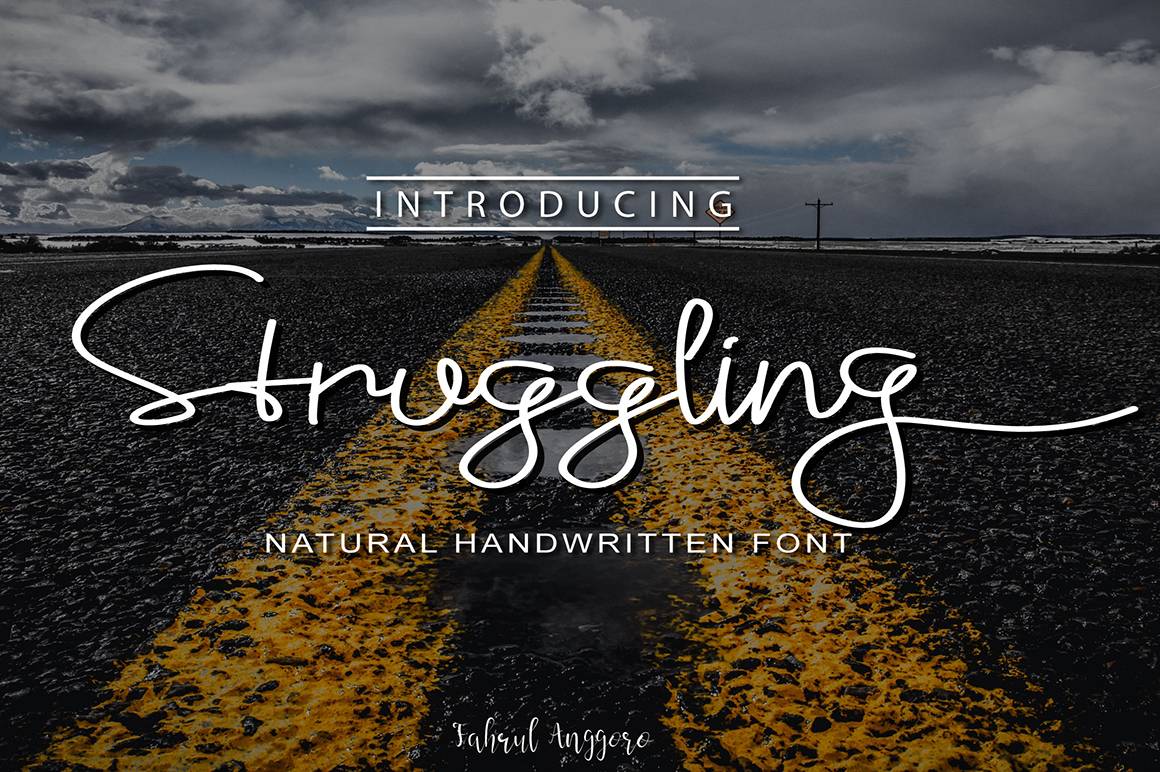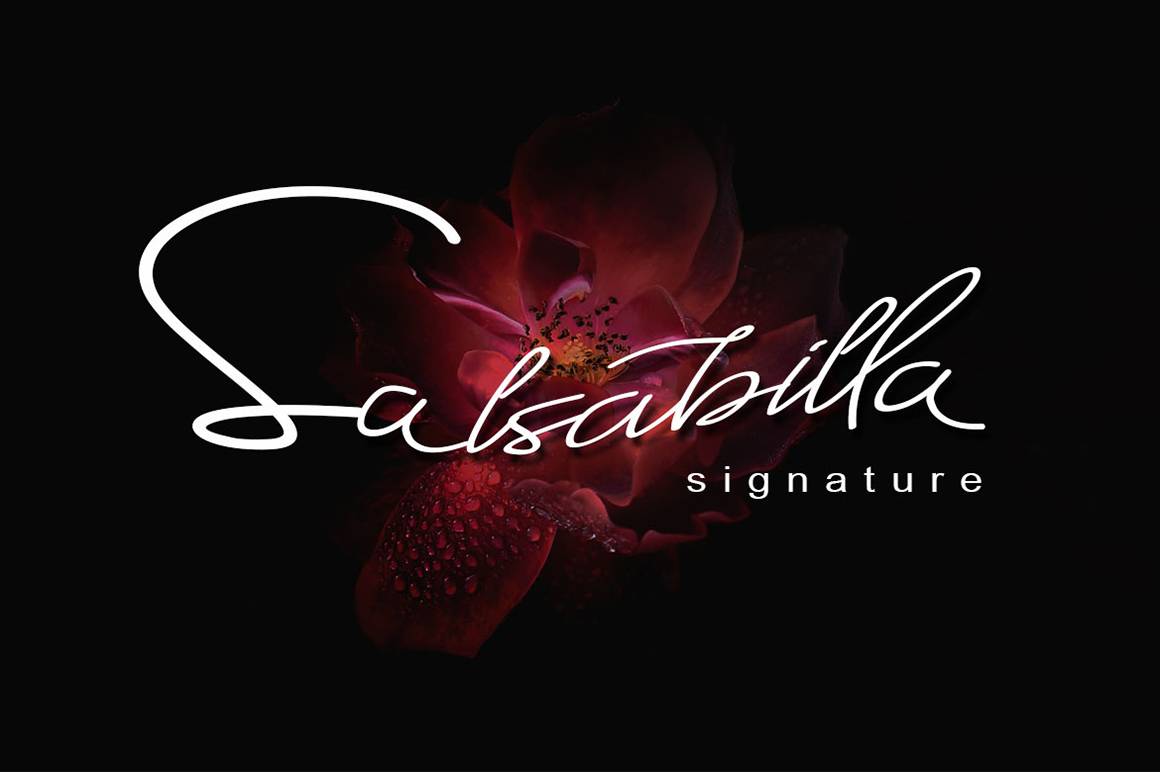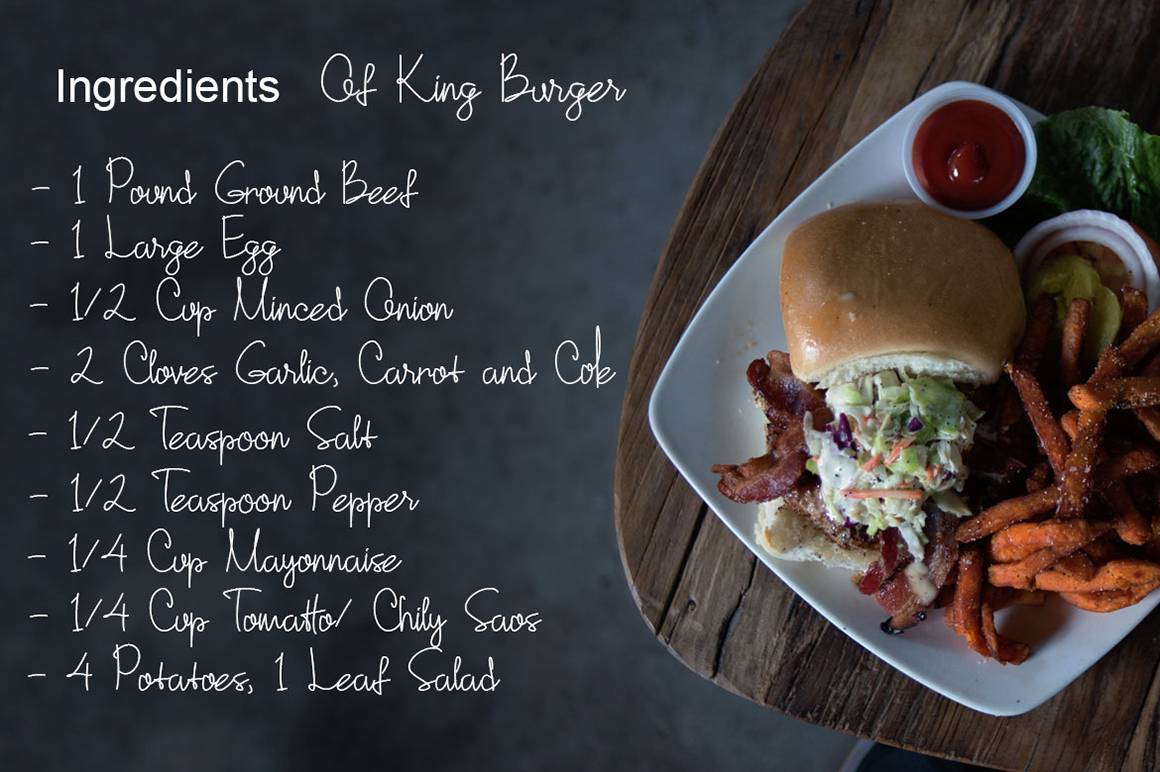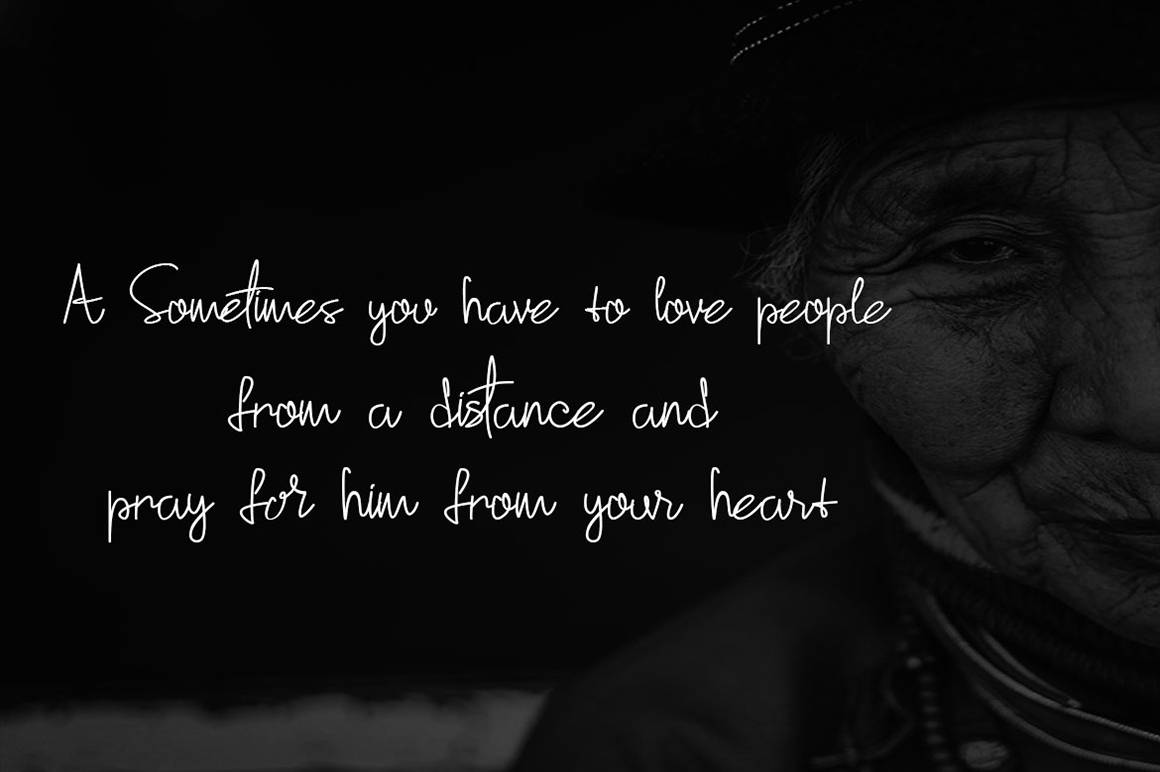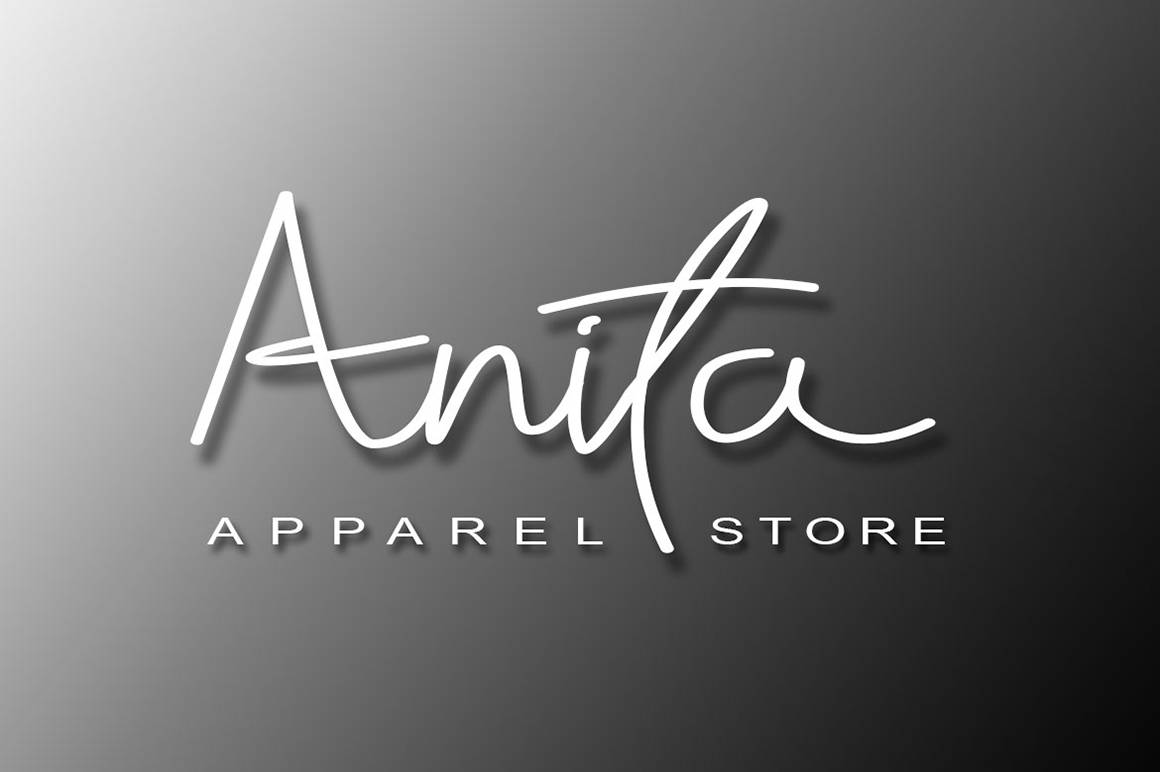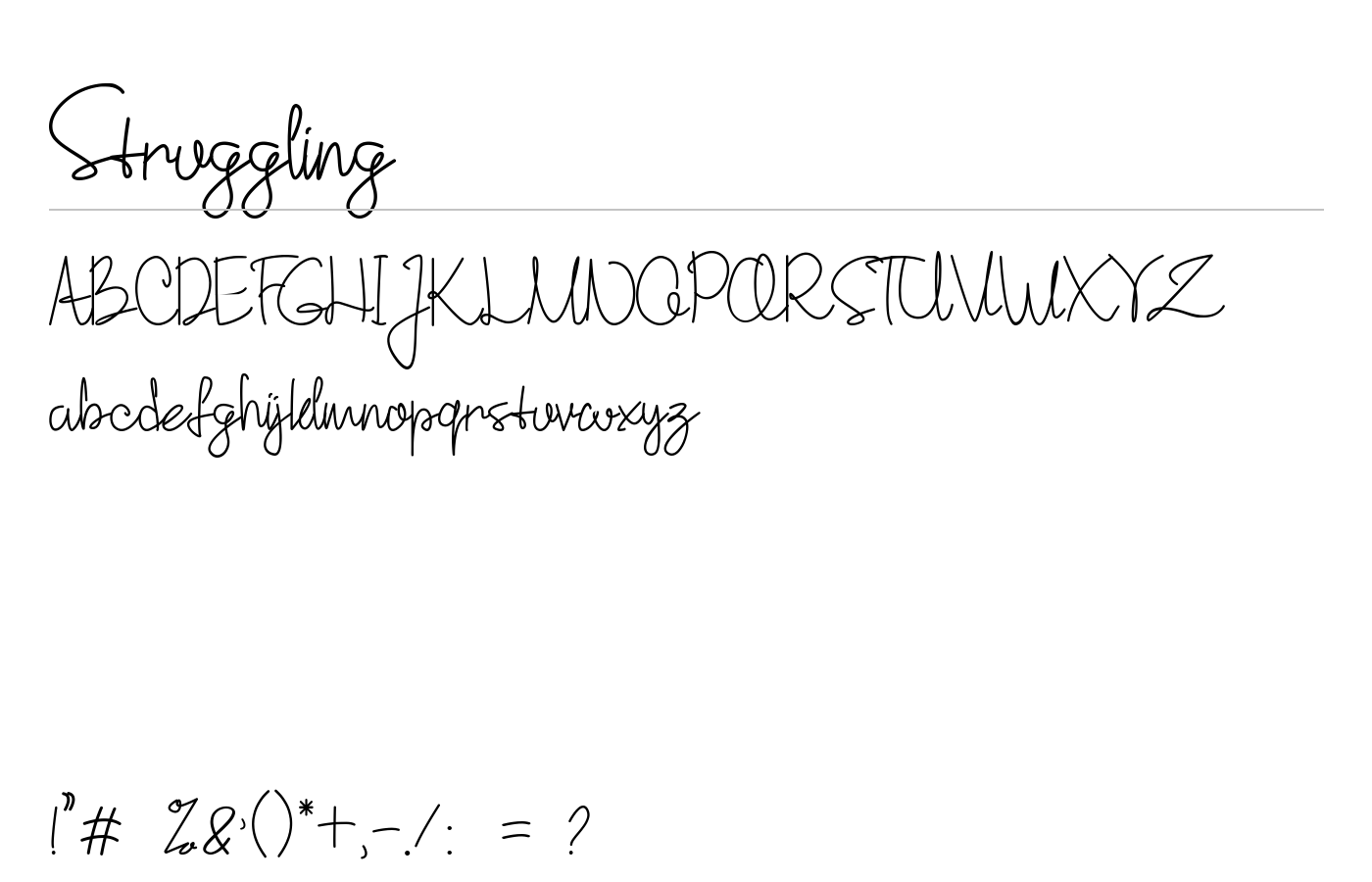
Struggling Font is a playful and informal handwritten typeface featuring thin, uneven strokes that resemble quick, casual penmanship. Its slender, tall letterforms with whimsical loops and curls create a light and airy feel, making it ideal for personal projects, creative branding, or any design needing a friendly and approachable touch. This font works best in headlines, logos, and social media graphics where a relaxed, artistic vibe is desired.
Struggling Font
About Struggling Font
| Designer | Fahrul Anggoro 2019 |